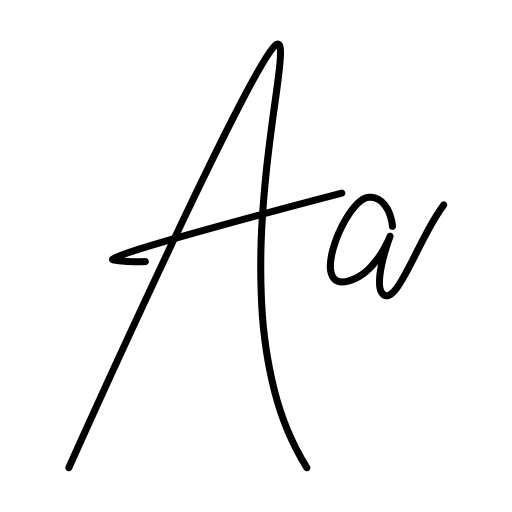
Austin Worth is a delicate, hand-drawn script font with thin, flowing lines and an elegant, airy feel. Its tall, irregular letterforms give it a personal, artistic touch, making it ideal for creative branding, invitations, and stylish editorial projects that seek a modern yet intimate look. This font works best where a refined, handmade aesthetic is desired to convey sophistication and uniqueness.
Austin Worth Font